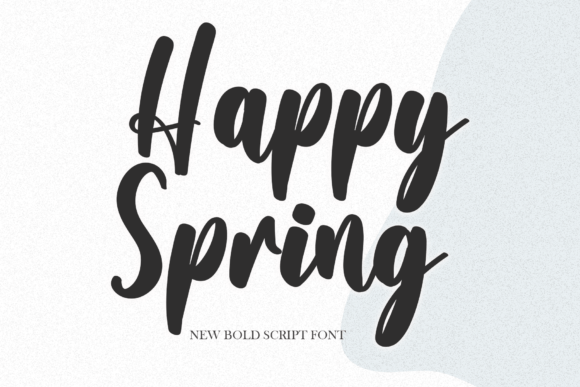
Welcome to the enchanting realm of Happy Spring Font, a creation of Creatype Designer, a visionary in the world of typography. This captivating script font, with its elegant curves and whimsical flair, is an invitation to unleash your creativity and add a touch of magic to your digital designs.
Immerse yourself in the artistry of Happy Spring, where each letter dances across the screen like a delicate spring breeze. Its flowing lines and playful characters evoke a sense of joy and wonder, making it the perfect choice for capturing the essence of the season. Whether you're crafting logos, social media posts, movie titles, or book covers, Happy Spring will elevate your work with its undeniable charm.
With Happy Spring at your fingertips, you'll unlock a world of artistic possibilities. Its versatility is truly remarkable, adapting seamlessly to a myriad of design styles. From classic and elegant to modern and whimsical, this font possesses the remarkable ability to transform your vision into a captivating reality.
But Happy Spring is more than just a beautiful font; it's an experience. Each stroke, each curve, and each letterform is meticulously crafted to evoke emotion and captivate your audience. Its inherent joyfulness radiates through every design, instantly connecting with viewers and leaving a lasting impression.
So, embrace the magic of Happy Spring Font and let your creativity blossom. With this remarkable font as your ally, you'll create designs that resonate with beauty, charm, and an undeniable sense of wonder.